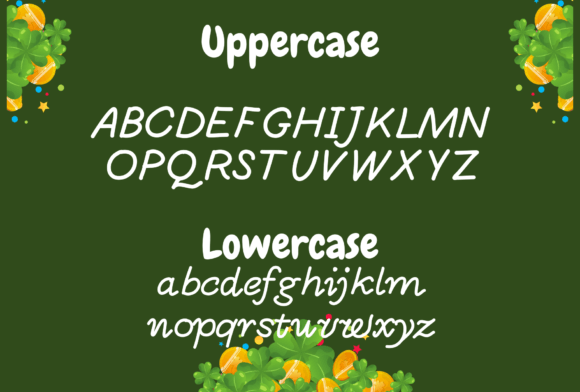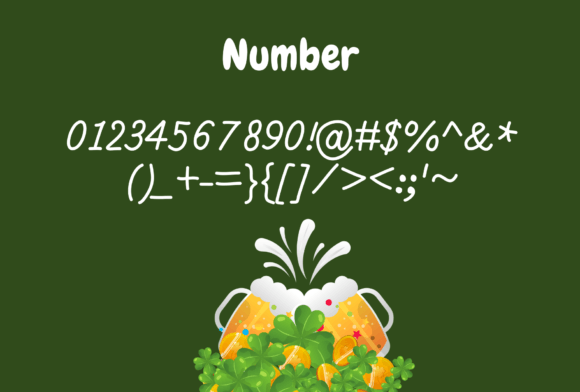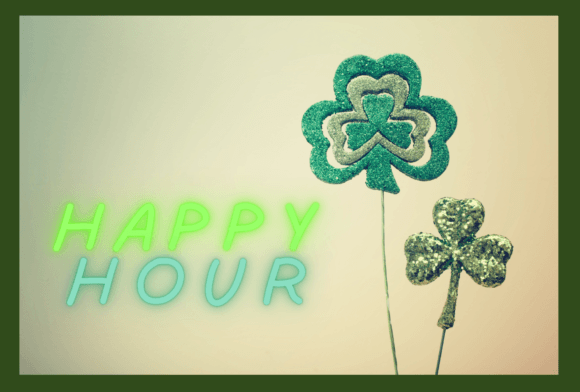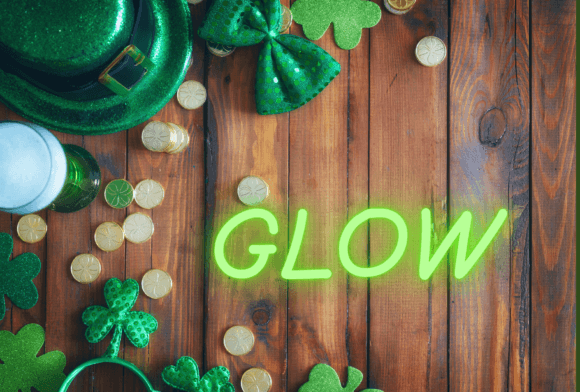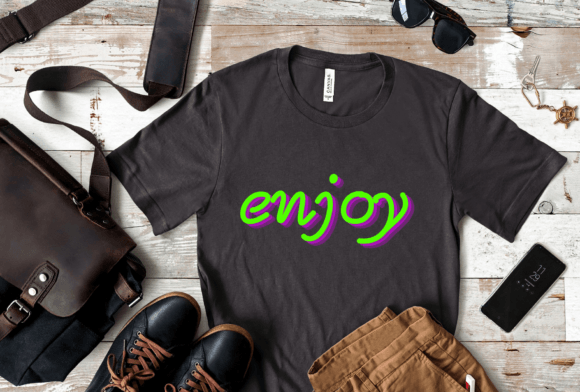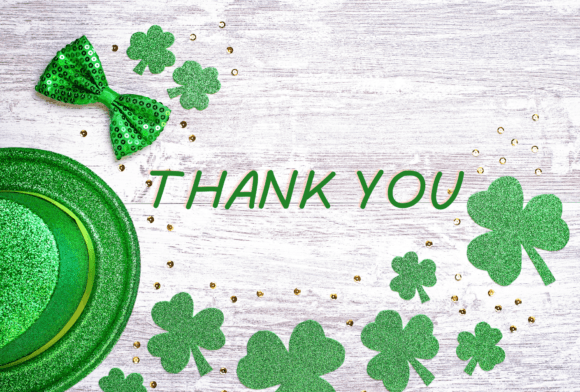
HomeScript FontsWriting by Me Script Fonts Writing by Me FacebookXPinterestWhatsApp 1 of 7 Writing by Me Poster 2... Writing by Me Poster 3... Writing by Me Poster 4... Writing by Me Poster 5... Writing by Me Poster 6... Writing by Me Poster 7... About Writing by Me is a cute and casual handwritten font. Add it to your crafty ideas and you will love the results! DOWNLOAD NOW People also explored Spaghetti Maqui Bunton Island Font Baking Lion Font Roslyta Font Callinda Font Robotics Font Fruityloops Font Haney Love Font 330 0 TagsWriting by Me Previous articleStylushNext articleBalloon Valentine LEAVE A REPLY Cancel reply Comment: Please enter your comment! Name:* Please enter your name here Email:* You have entered an incorrect email address! Please enter your email address here Website: Save my name, email, and website in this browser for the next time I comment. Personal Use Free No Virus Personal Use Free Read more about this font Alinda Personal Use Free Read more about this font Charlie Personal Use Free Read more about this font Aragon Personal Use Free Read more about this font BLOG To increase your work productivity, choose the most readable fonts. In today's fast-paced work environment, where digital communication and information consumption are integral to our daily routines, the choice of fonts can significantly impact... Modern Sans-Serif Fonts That Brands Love in 2025 Best Fonts for T-Shirt Design – Top 2025 Picks The 10 Best Handwriting Fonts to Add Personality to Your Designs